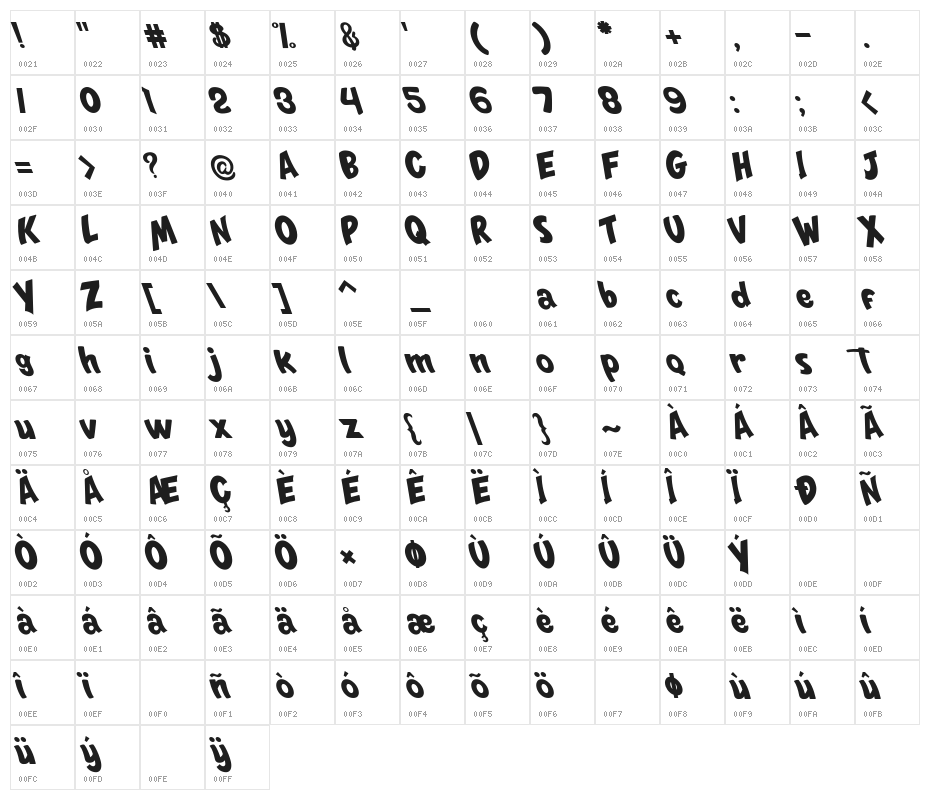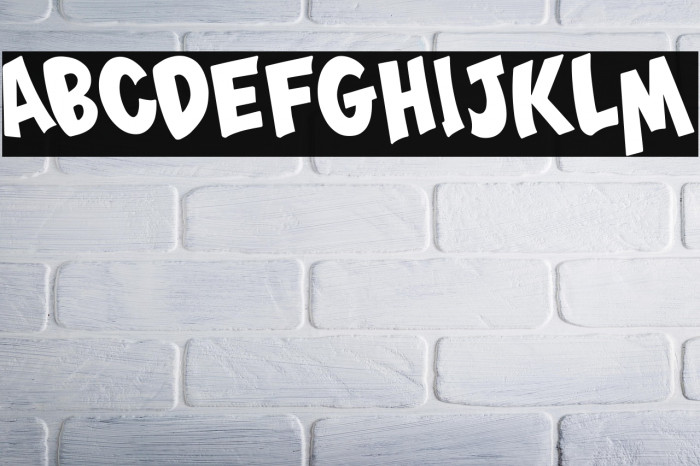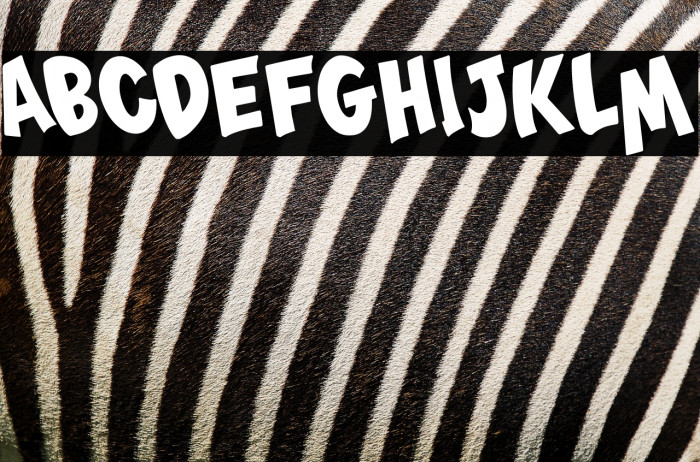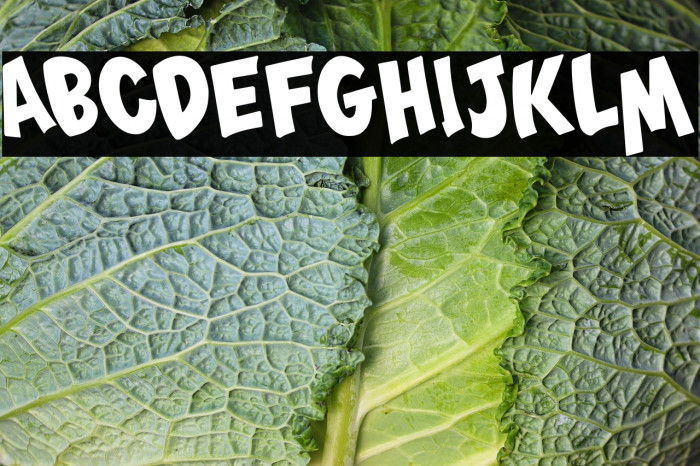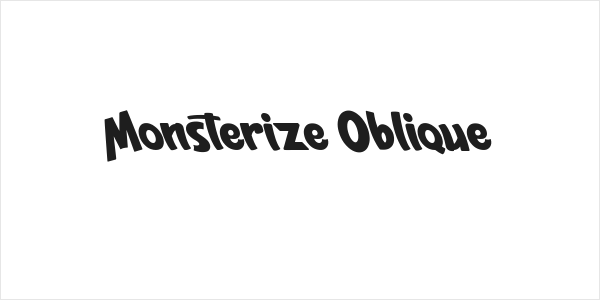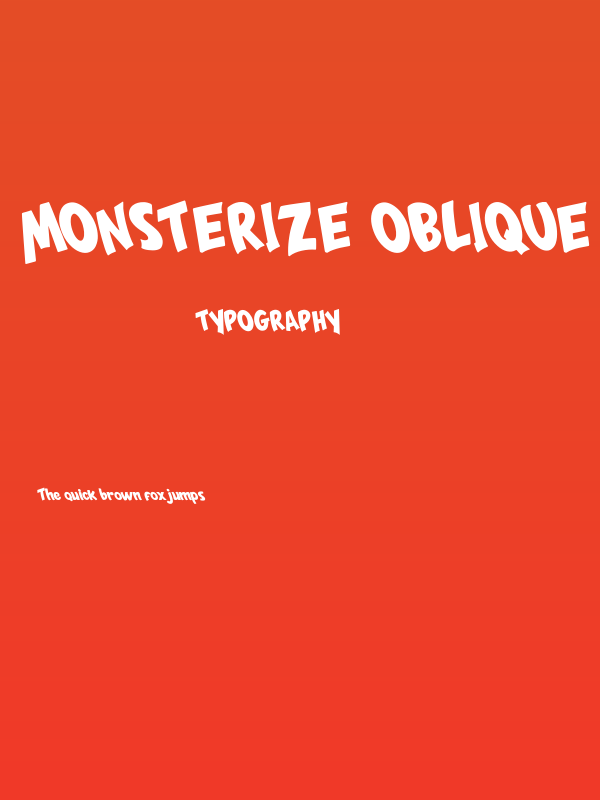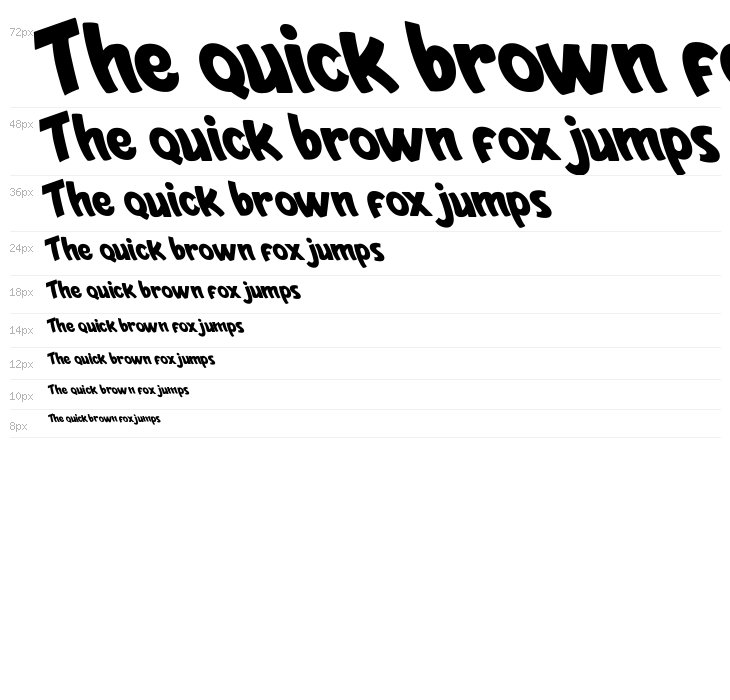
Monsterize Oblique Font
Monsterize Oblique Description
This font features a bold and playful design with a distinct oblique slant, giving it a dynamic and energetic appearance. The characters are thick and rounded, with a slightly irregular shape that adds a whimsical touch. The uppercase and lowercase letters maintain a consistent style, while the numerals and special characters complement the overall look. The font's boldness and unique style make it stand out, making it suitable for eye-catching designs.
Overall StylePlayful, Energetic
Proposed ProjectsIdeal for children's books, comic strips, playful branding, and event posters.